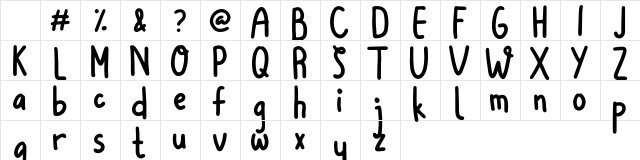
Complete Winter Snow Regular glyph index. Displaying only characters natively supported by Winter Snow Regular font.
Winter Snow is a composed and adaptable typeface that performs quietly and consistently across a wide range of design contexts.